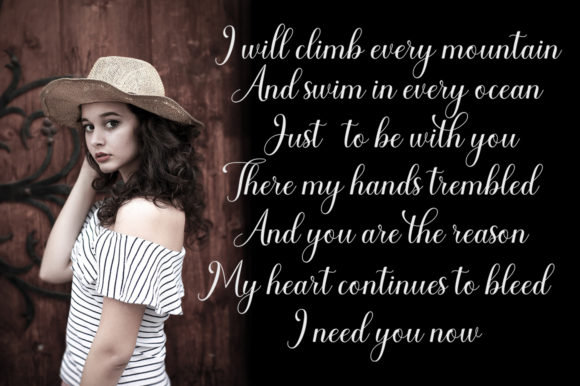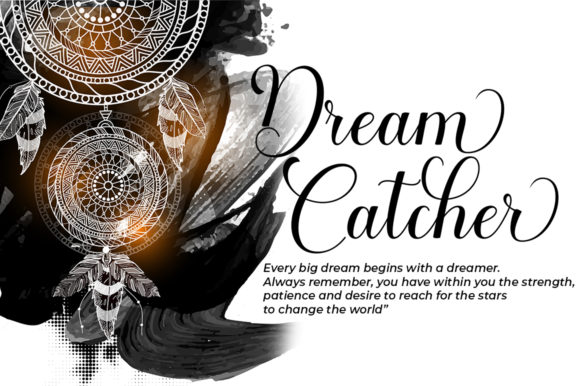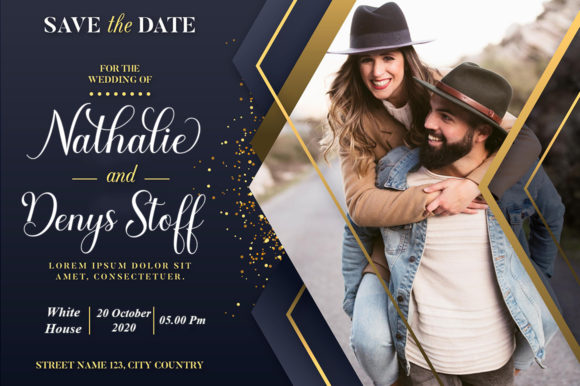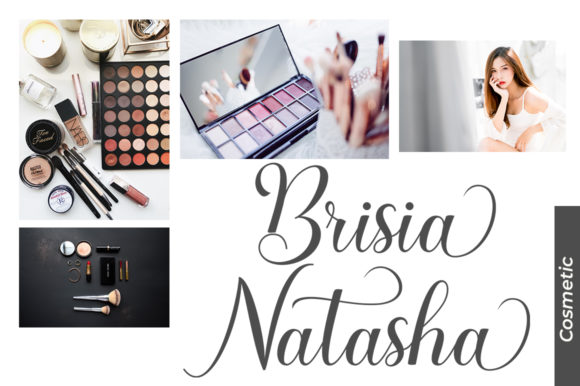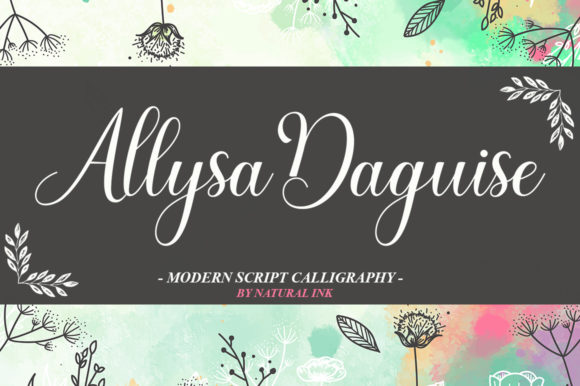
Introducing Allysa Daguise Font: The Epitome of Elegance and Charm
In the world of typography, few fonts manage to strike a balance between charm and elegance. However, Allysa Daguise Font is one such exceptional typeface that embodies both qualities in abundance. This beautiful handwritten font is perfect for designers and crafters looking to add a touch of sophistication and personality to their projects.
The Characteristics of Allysa Daguise Font
Allysa Daguise Font is a stunning script typeface that exudes elegance and charm. Its varying baseline, smooth lines, and gorgeous glyphs make it an ideal choice for a wide range of design projects. Whether you’re working on wedding invitations, thank you cards, quotes, greeting cards, logos, or business cards, this font is sure to make your designs stand out.
Key Features of Allysa Daguise Font
- PUA Encoding: Allysa Daguise Font is PUA encoded, which means you can access all the glyphs and swashes with ease. This feature makes it incredibly easy to use and customize the font to suit your design needs.
- Varying Baseline: The font features a varying baseline, which gives it a natural, handwritten look that’s perfect for creating elegant and sophisticated designs.
- Smooth Lines: The smooth lines of Allysa Daguise Font add to its charm and elegance, making it perfect for designs that require a touch of refinement.
- Gorgeous Glyphs: The font comes with a range of gorgeous glyphs and stunning alternates, allowing you to create unique and visually appealing designs.
Use Cases for Allysa Daguise Font
Allysa Daguise Font is a versatile typeface that can be used for a wide range of design projects, including:
- Wedding Invitations: The font’s elegant and charming design makes it perfect for wedding invitations, adding a touch of sophistication and romance to your wedding stationery.
- Thank You Cards: Use Allysa Daguise Font to create beautiful and heartfelt thank you cards that are sure to impress your friends and family.
- Quotes: The font’s elegant design makes it perfect for creating inspirational and motivational quotes that are sure to resonate with your audience.
- Greeting Cards: Whether you’re creating birthday cards, Christmas cards, or any other type of greeting card, Allysa Daguise Font is sure to add a touch of elegance and charm to your designs.
- Logos: The font’s unique and elegant design makes it perfect for creating logos that are sure to stand out from the crowd.
- Business Cards: Use Allysa Daguise Font to create professional and elegant business cards that are sure to make a lasting impression.
Why Designers and Crafters Love Allysa Daguise Font
Designers and crafters love Allysa Daguise Font for its elegance, charm, and versatility. The font’s PUA encoding makes it easy to use and customize, while its range of glyphs and swashes allows for endless creativity. Whether you’re a professional designer or a crafter, Allysa Daguise Font is sure to become a favorite in your collection.
In conclusion, Allysa Daguise Font is a stunning script typeface that embodies elegance and charm. Its versatility, range of features, and ease of use make it perfect for designers and crafters looking to add a touch of sophistication and personality to their projects. Whether you’re working on wedding invitations, logos, or business cards, Allysa Daguise Font is sure to make your designs stand out.